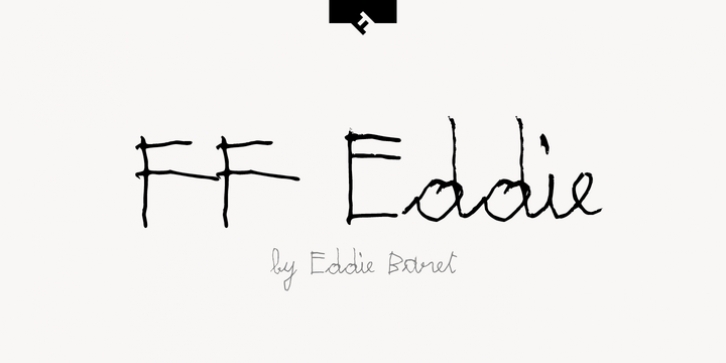
FF Eddie downloadDesigner: Eddie Baret
Publisher: FontFont
French type designer Eddie Baret created this script FontFont in 2001.
The font is ideally suited for festive occasions, poster and billboards as well as software and gaming.
FF Eddie provides advanced typographical support with features such as ligatures, case-sensitive forms, super- and subscript characters, and stylistic alternates.
It comes with proportional lining figures.